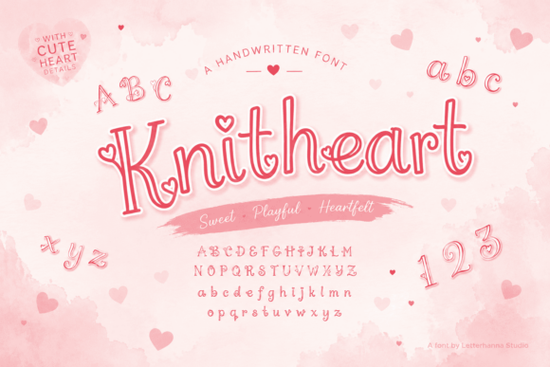
Finding the right typeface for a handmade brand often comes down to capturing a specific feeling rather than just legibility. You want something that communicates warmth and attention to detail before anyone even reads the words. Knitheart Font fits this description perfectly, offering a visual texture that mimics the comfort of handcrafted woolwork. Designed with makers in mind, it moves away from sterile corporate looks to bring a softer, more intimate personality to printed materials.
What makes this typeface feel so tactile?
Most display fonts try to mimic metal type or heavy brush strokes, but this selection takes a different approach. The letterforms utilize a hollow double-outline construction, creating a light, dimensional quality that suggests paper cutouts or soft dough impressions. This technique adds depth to simple text without cluttering the design. More importantly, the character set includes deliberate heart accents placed in various locations dots on lowercase letters, stroke tips, and curve openings. These details do not shout; they whisper, adding a layer of affection to headlines or packaging labels without overwhelming the viewer.
The design intent aligns closely with artisans who prioritize emotional connection over stark minimalism. When you apply this to physical goods, the effect carries through into the final print. Whether used on wedding suites or gift shop signage, the aesthetic signals that someone cared about the specifics of the presentation.
Who benefits most from this style?
This font shines brightest in industries where personalization is a key selling point. Small business owners selling via Etsy, Shopify, or pop-up markets often struggle with branding that feels too generic. Using this face helps distinguish a brand identity in crowded marketplaces. For example, wedding invitation suites designed for couples wanting a cozy, cottage-core theme rely heavily on typography to set the scene. The whimsical nature of the characters supports those narratives effectively.
Beyond events, it serves print-on-demand sellers well. T-shirts featuring family names, nursery decor, or seasonal greeting cards benefit from the sweet and joyful vibe described in the font documentation. However, not every project requires this level of decoration. If your audience needs something strictly functional for tracking data, exploring planner font script fonts might offer clearer readability for daily organization. Similarly, while this typeface has plenty of character for creative work, educational materials often require more standardized structures, making children school font script fonts a safer choice for classrooms focused on learning to read.
Sometimes, the goal shifts from decorative to purely flowing. If you are working on invitations that require long guest lists or thank-you notes, you might prefer a continuous handwriting style. In those cases, scrolling through options like rising happy font script fonts could provide a smoother alternative for extended text blocks. Conversely, brands pushing a more rebellious or edgy aesthetic might find standard cursive too soft, leading them toward snakey font script fonts which capture movement without the traditional romance. Even bright, summery themes have their own distinct flavors, where citrus-inspired scripts like lemon dreams font script fonts replace the cozy knit texture with vibrant energy.
Technical aspects for digital and physical creation
Before purchasing, designers need to consider compatibility. Most modern word processors and design tools support OpenType files, ensuring the special glyphs and accents render correctly across different devices. When preparing assets for sublimation or vinyl cutting, the hollow outlines allow for easier tracing if you are using software that converts text to vector paths.
Is this the right choice for your next job?
The decision to use this typeface depends entirely on the message you wish to convey. If your brand voice is professional, minimalist, or highly technical, the decorative elements may distract from core information. However, if you want to evoke nostalgia, love, or handmade charm, this tool provides a strong foundation. It pairs well with pastel color palettes, textured backgrounds, and floral imagery, creating a cohesive visual language.
- Download test samples: Create a mockup of your intended use, such as a card front or logo draft.
- Check spacing: Adjust kerning manually to ensure the hearts do not overlap awkwardly with neighboring letters.
- Print a proof: View the font at actual size to see if the double-outline remains visible or disappears too thin on smaller prints.
Ultimately, typography is about communication. By choosing a font that reflects the care you put into your work, you invite your customers to appreciate that effort before they even touch the product.